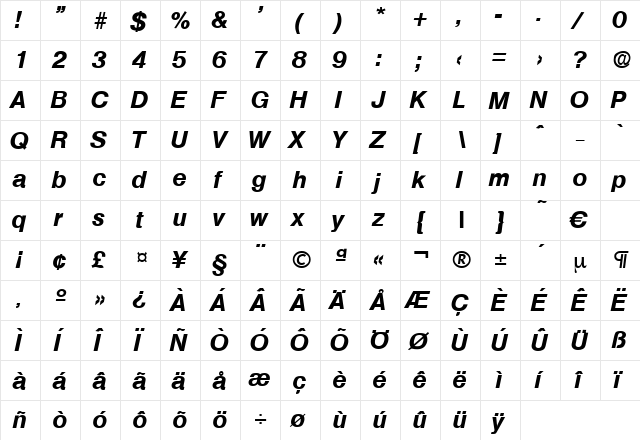
Olympia-BoldIta Regular
Design Context for Olympia-BoldIta Typeface
Olympia-BoldIta takes a measured approach to typography — its balanced proportions and neutral character make it a reliable workhorse for both digital and print work. The heavy weight commands attention and anchors typographic hierarchies.